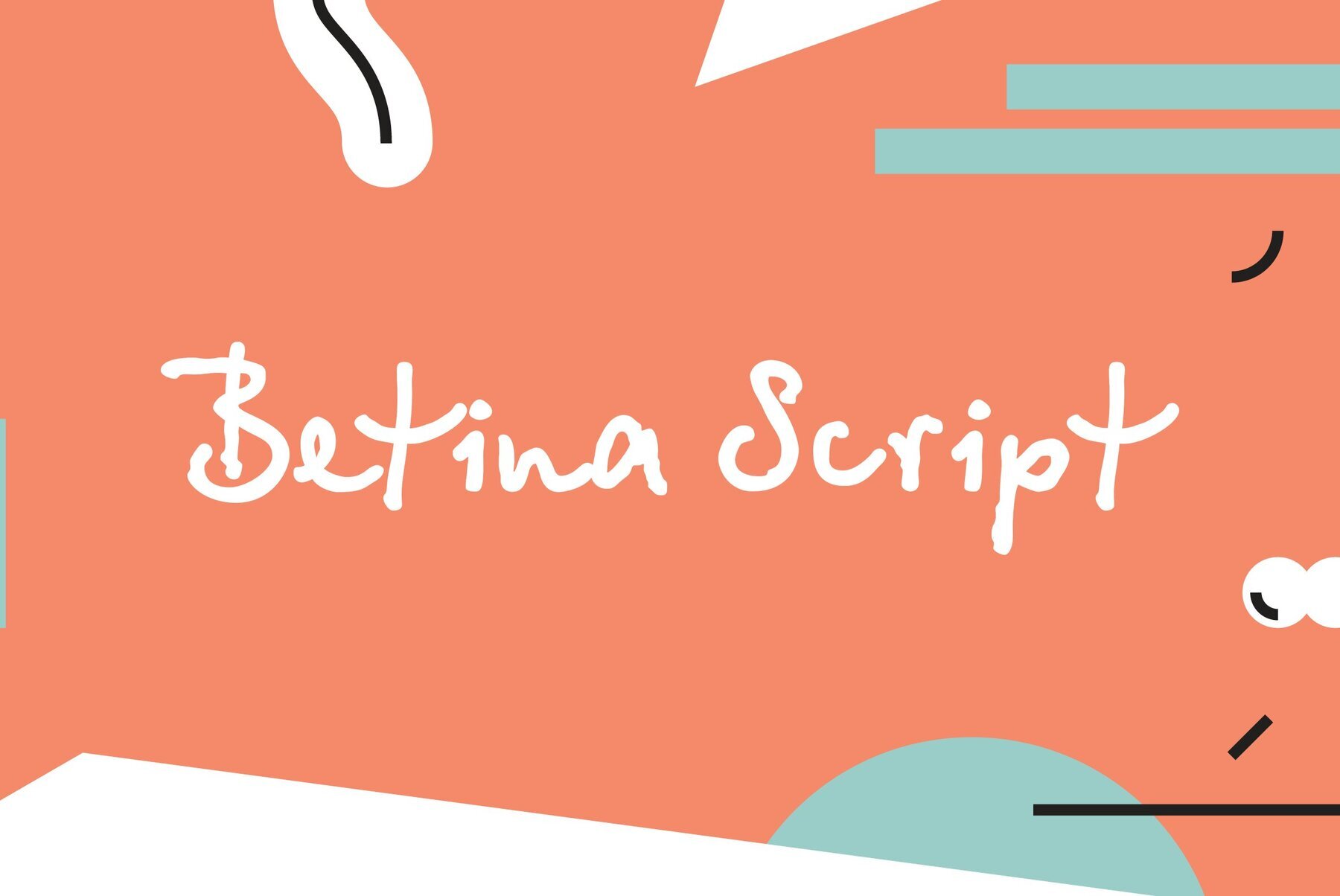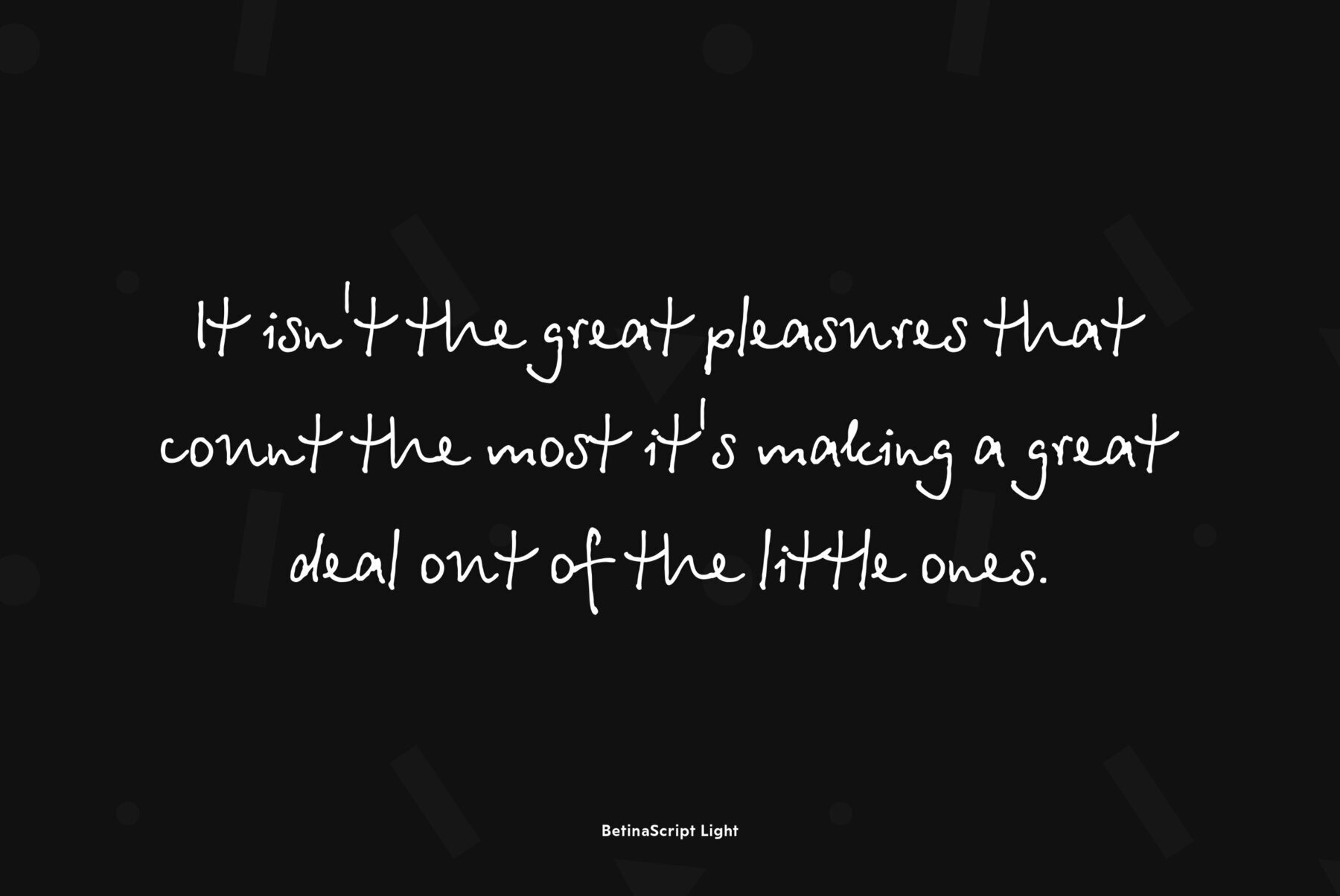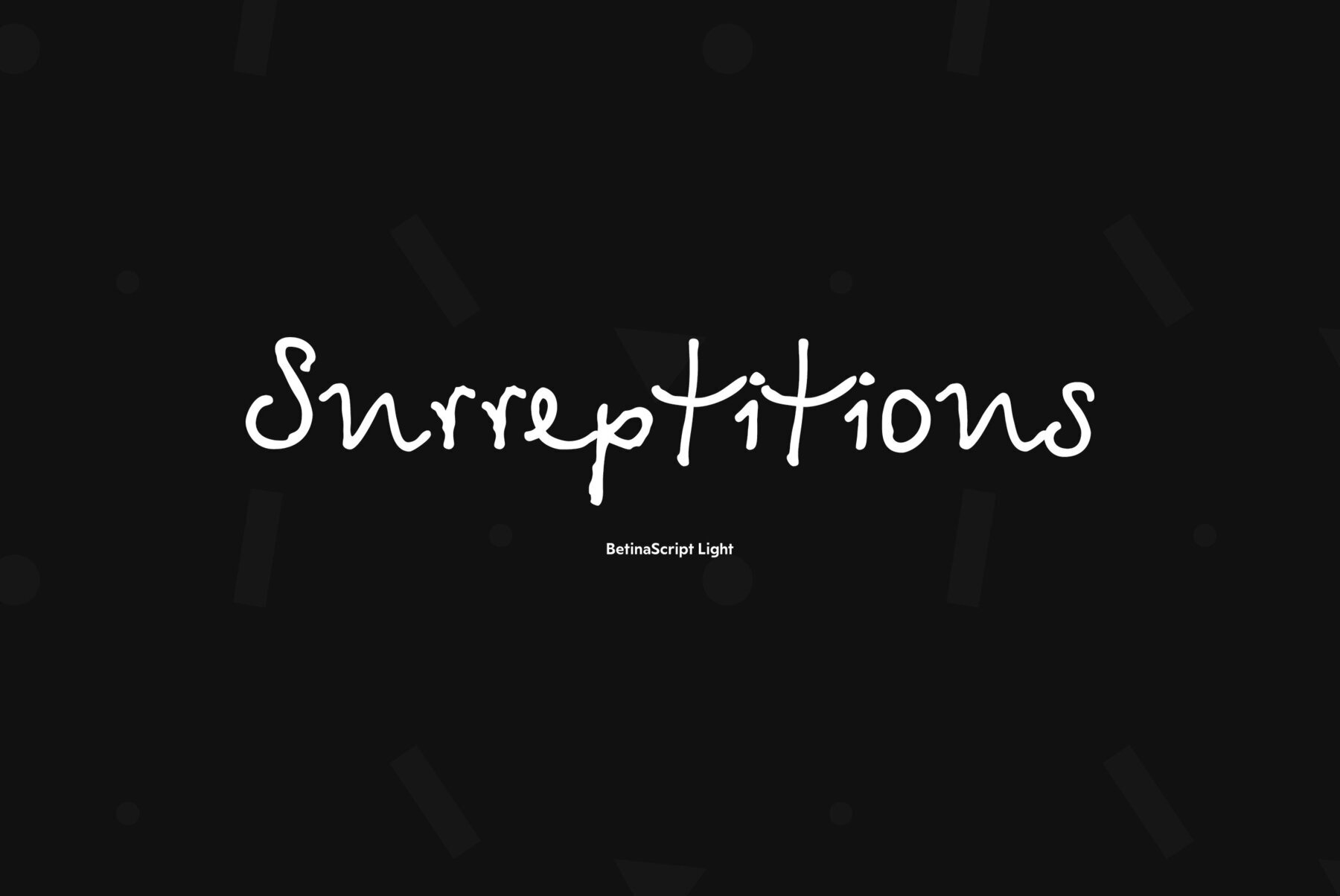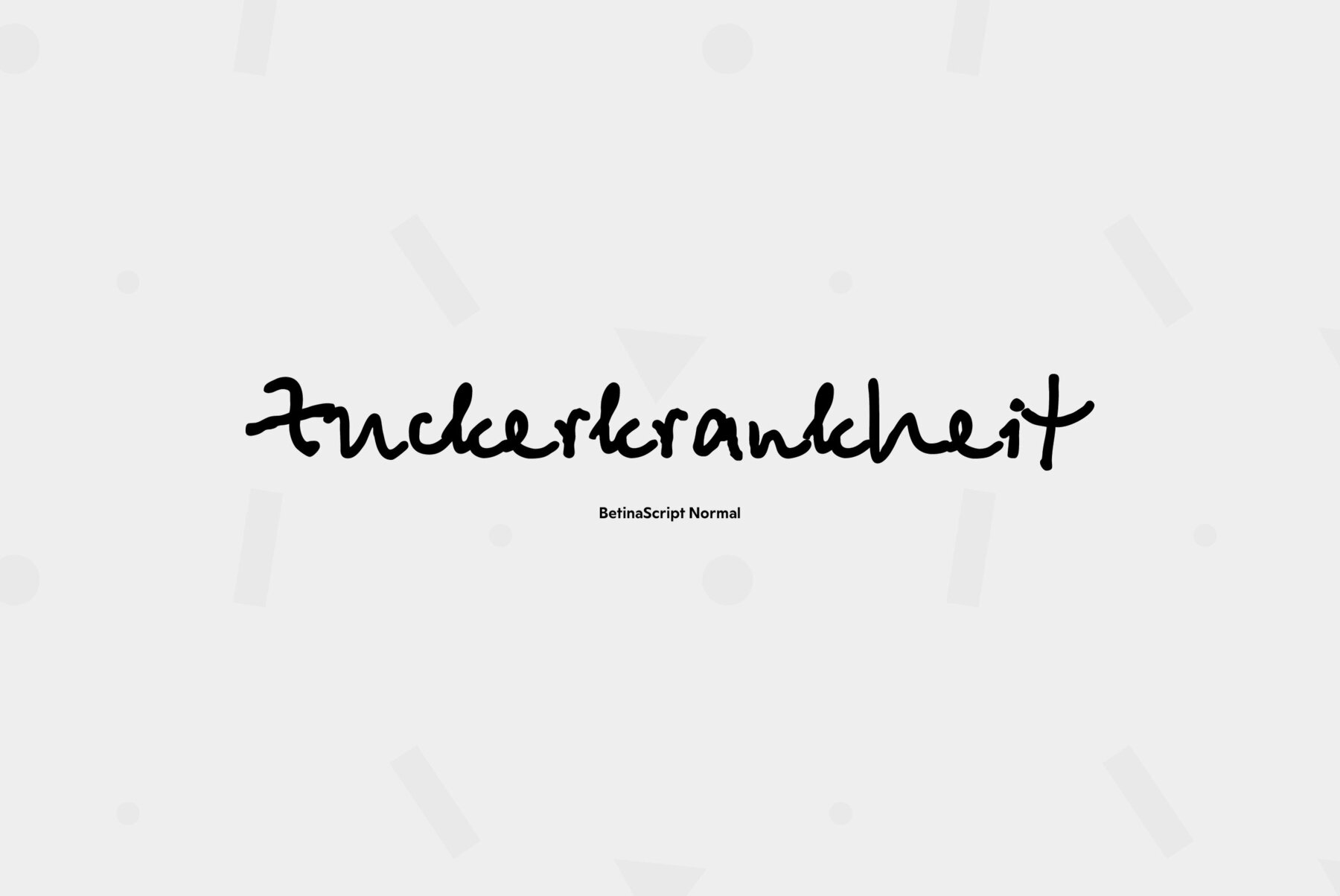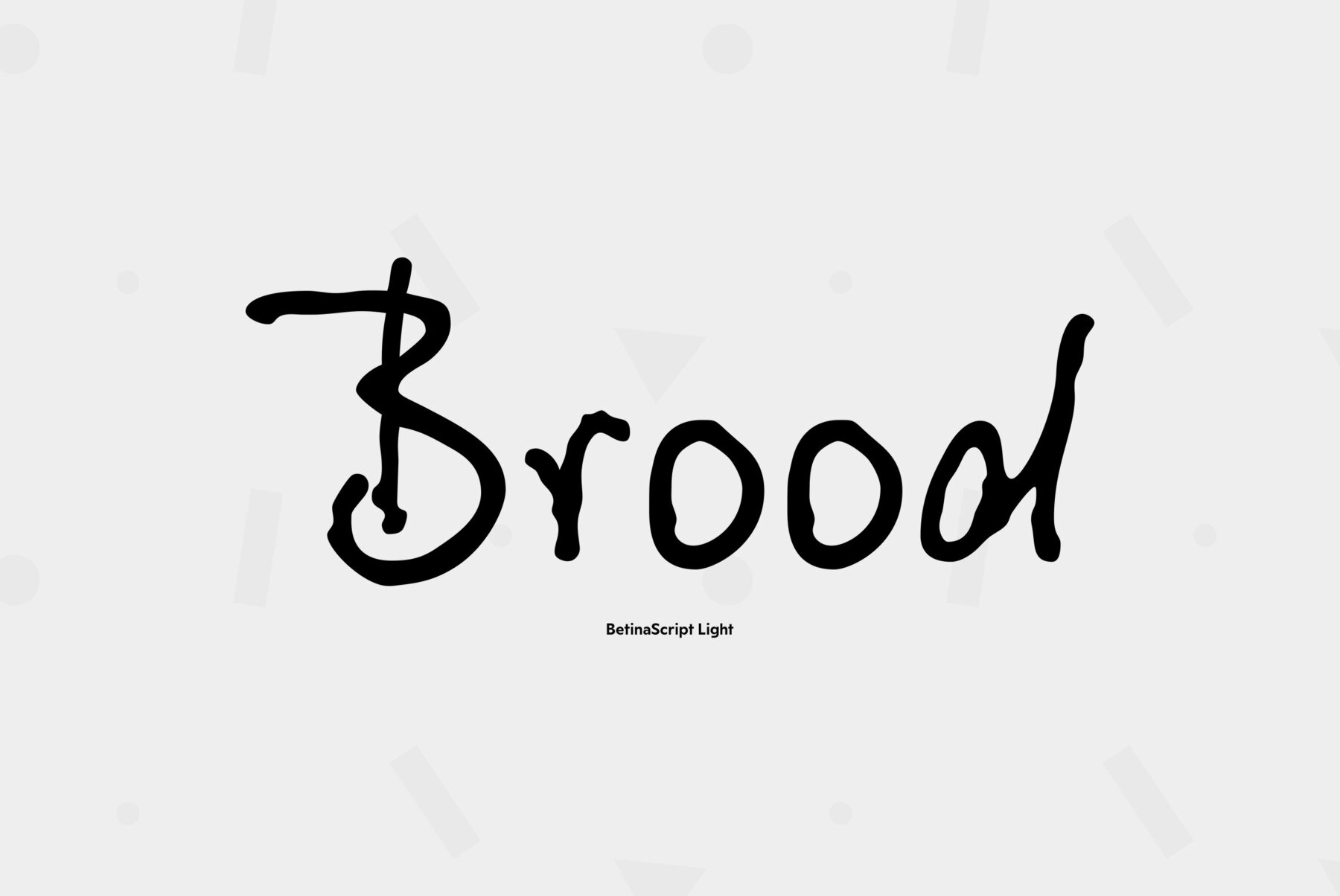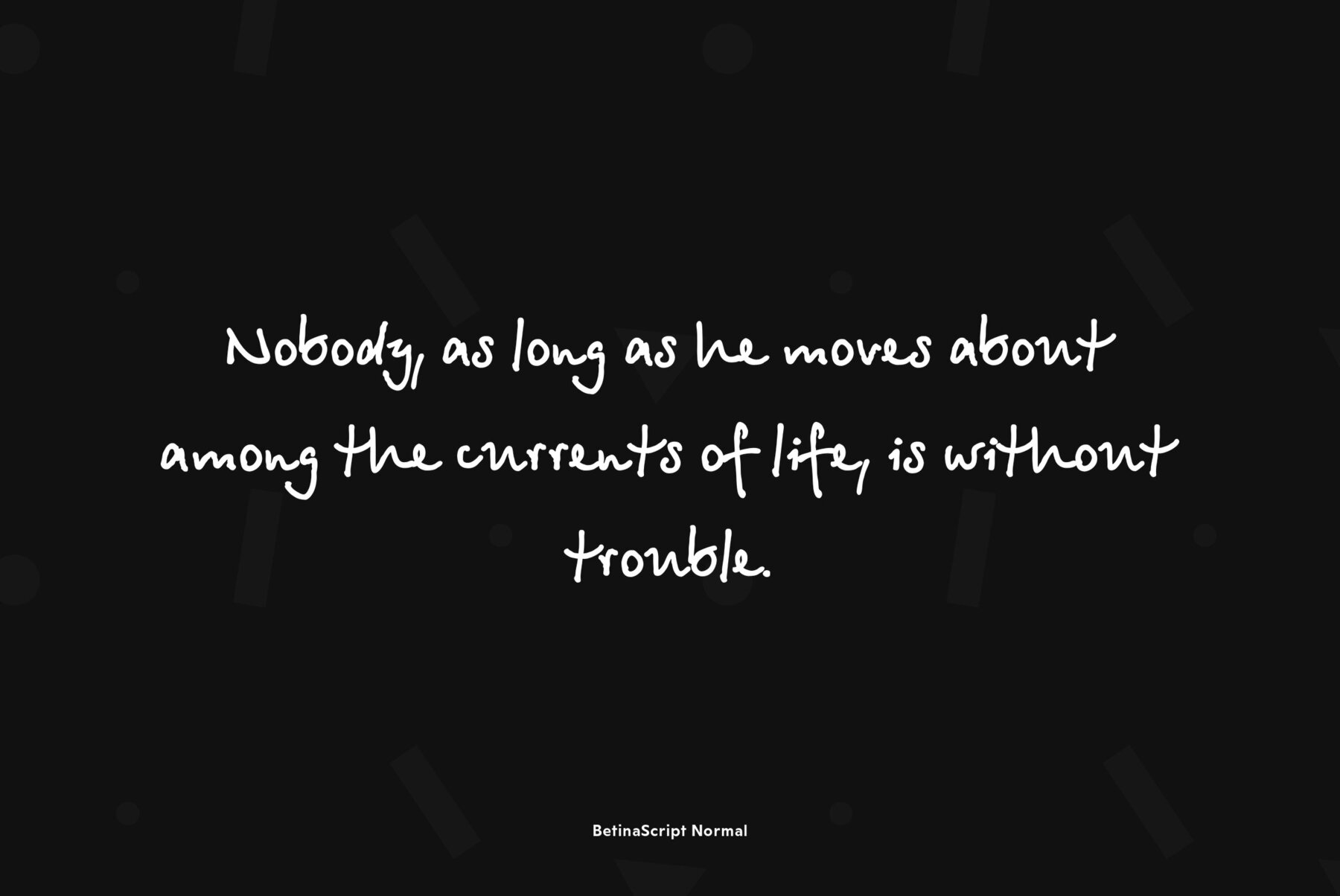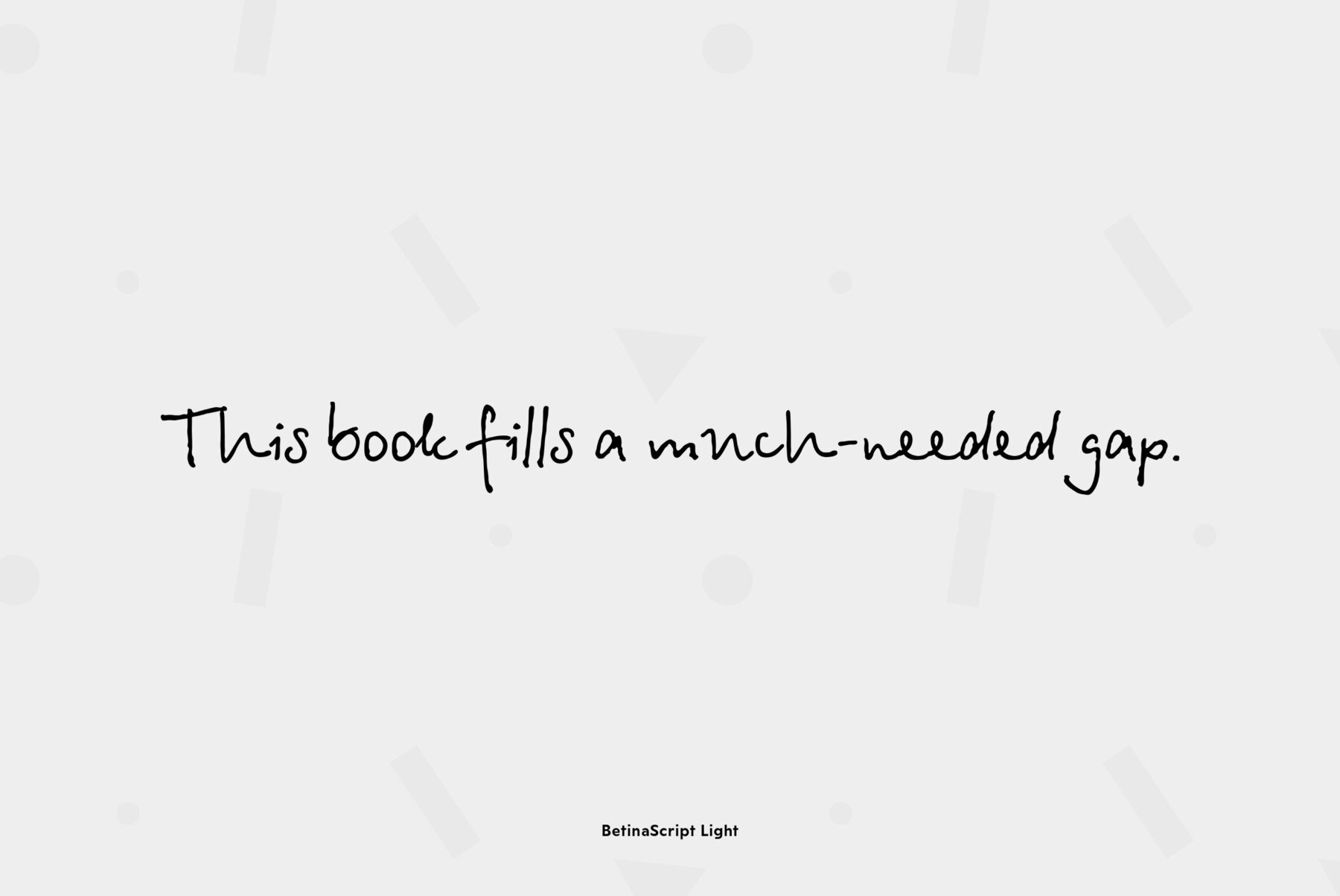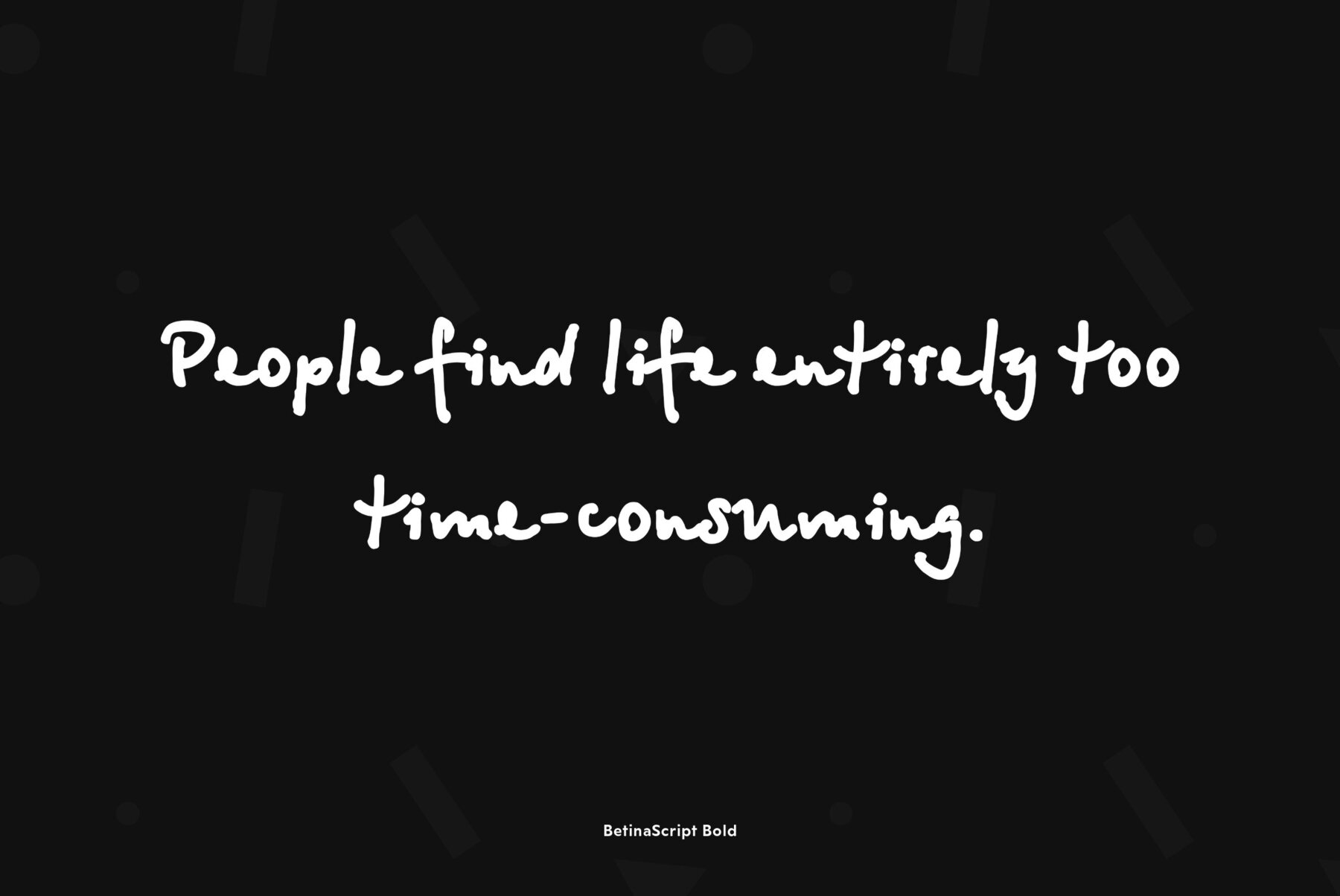
Betina Script
The type family was designed at ParaType (ParaGraph) in 1992 by Alexander Tarbeev. Based on the handwriting of the German graphic artist Betina Kuntzsch. For use in advertising and display typography. Additional Latin letters (for the whole family) and Greek letters (for the normal style) were added by Gennady Fridman in 2006-2009.